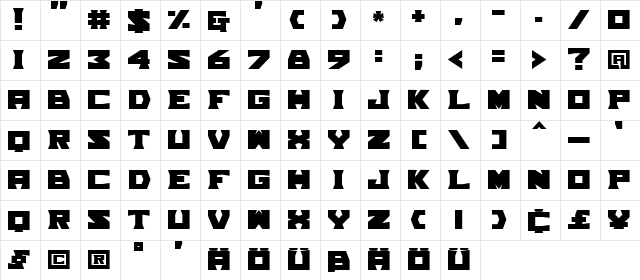
Complete TPF Grum Mel Regular glyph index. Displaying only characters natively supported by TPF Grum Mel Regular font.
TPF Grum Mel is a composed and adaptable typeface that performs quietly and consistently across a wide range of design contexts.